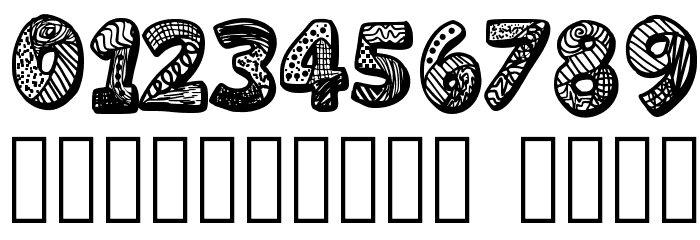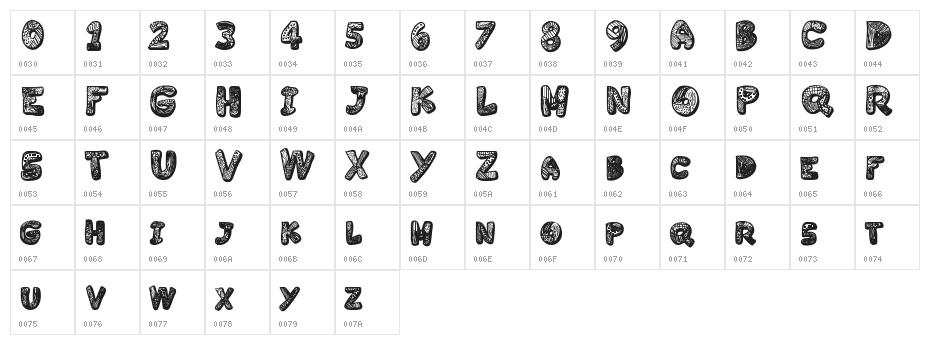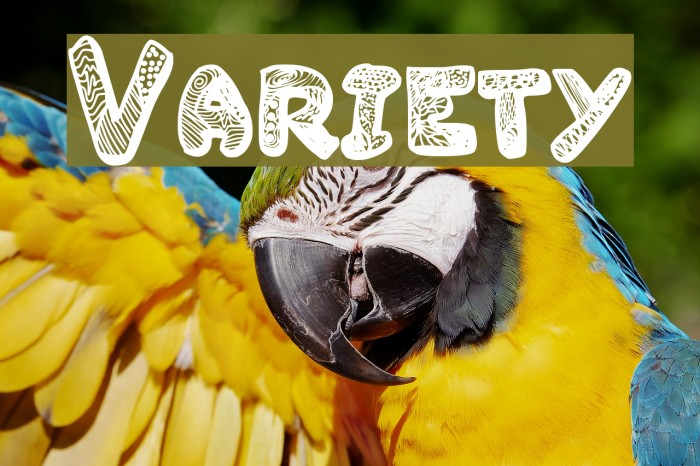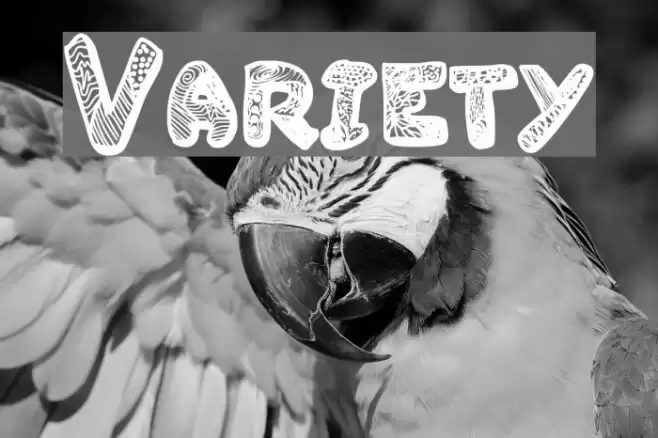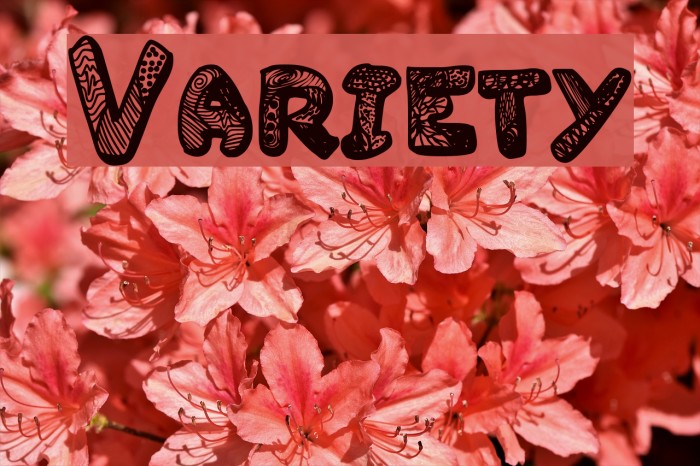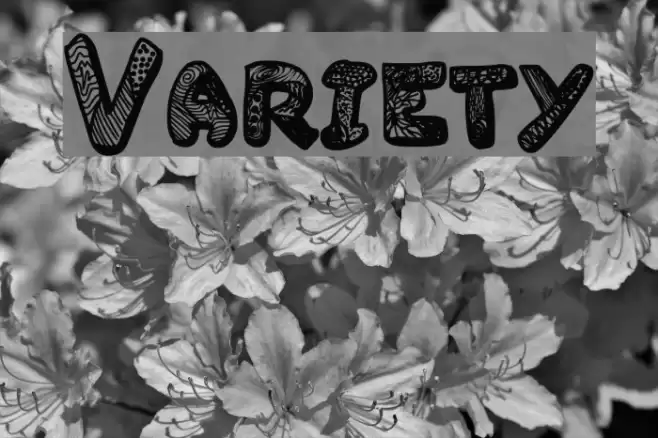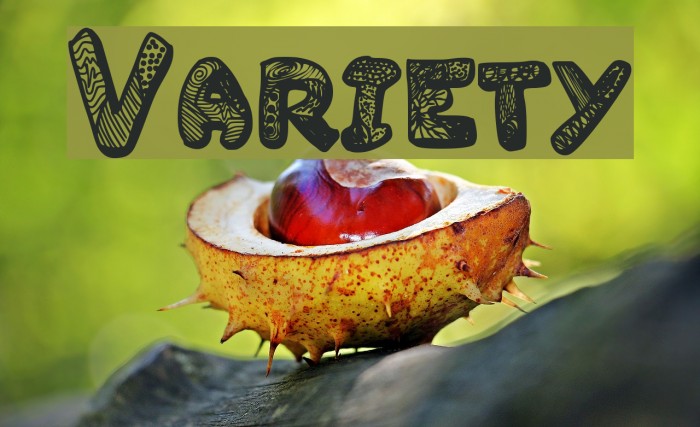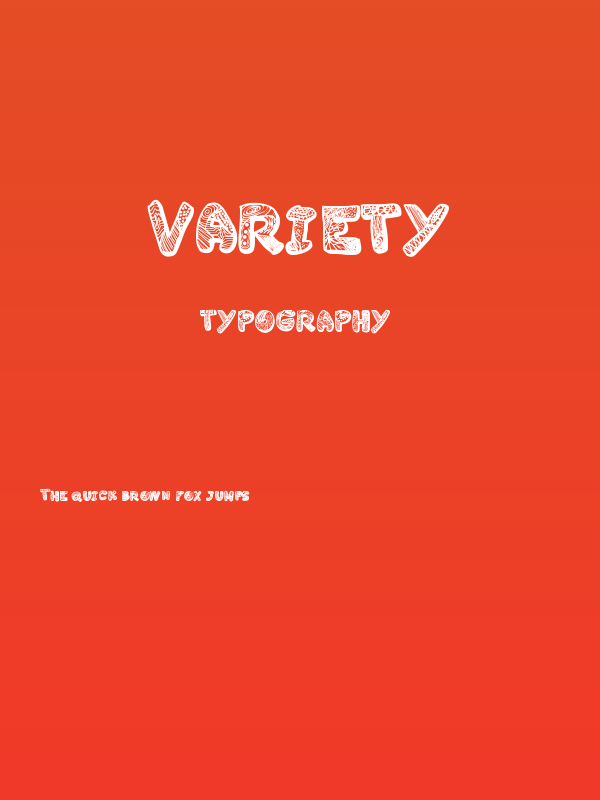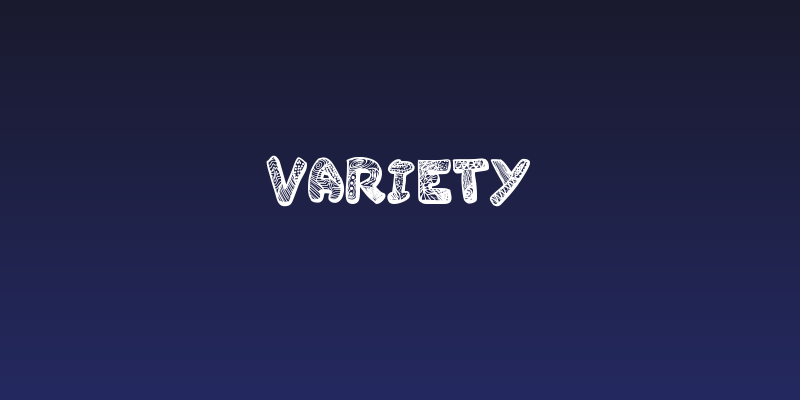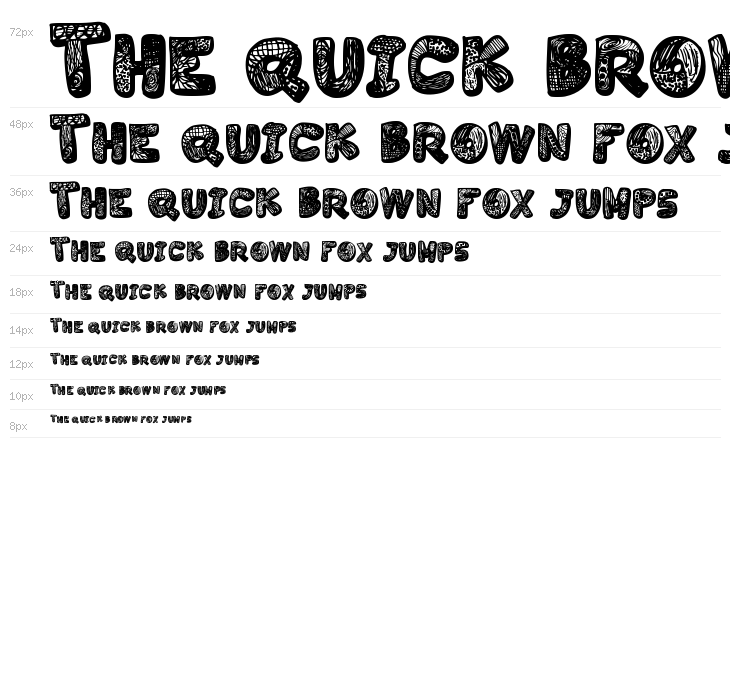
Variety Font
Variety Description
This font is a bold and playful decorative style, characterized by its unique and artistic patterns within each character. The letters are filled with various intricate designs, such as stripes, dots, and abstract shapes, giving it a hand-drawn and whimsical appearance. Each character stands out with its own distinct pattern, making the font highly dynamic and visually engaging. The font maintains a consistent weight and width across all characters, ensuring readability despite its decorative nature. The numbers and special characters follow the same design principles, adding to the font's cohesive look. This font is perfect for projects that require a fun and creative touch.
| Proposed Projects | Ideal for children's books, playful branding, posters, and creative invitations. |